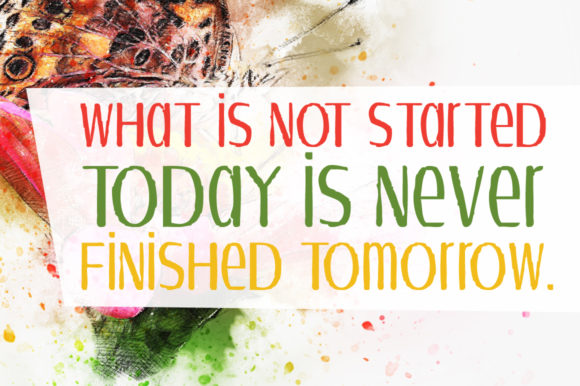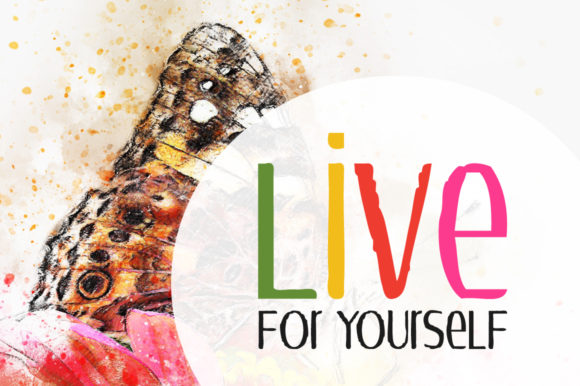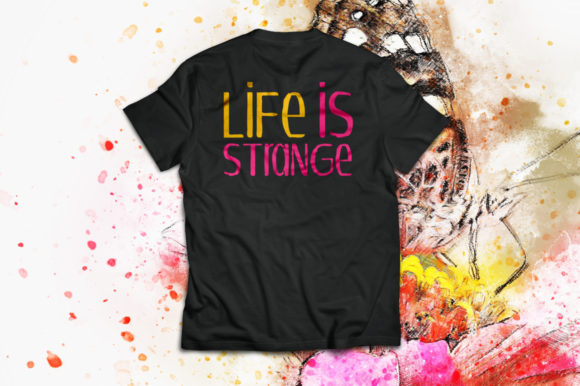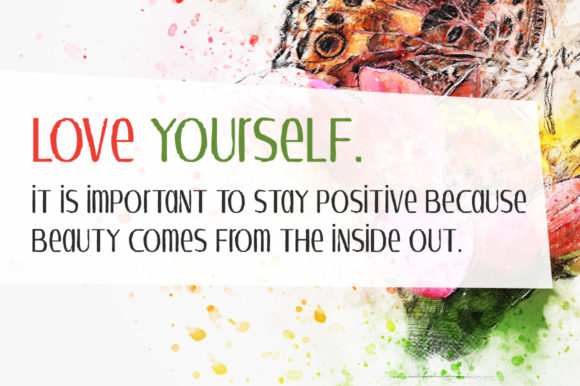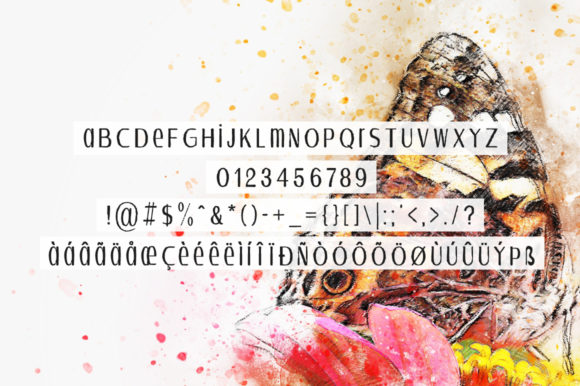
Introducing Colorants Font: Elevate Your Designs with a Striking Handwritten Style
In the world of design, fonts play a crucial role in conveying messages, evoking emotions, and creating visual identities. For designers and crafters seeking a unique and impactful font, Colorants Font is an excellent choice. This striking handwritten font boasts exceptional readability, making it perfect for a wide range of applications, from flyers and music covers to image sliders and more.
The Characteristics of Colorants Font
Colorants Font is a carefully crafted handwritten font that exudes a sense of personality and flair. Its distinctive characteristics include:
- Readability: Despite its artistic and handwritten nature, Colorants Font maintains excellent readability, ensuring that your message is conveyed clearly and effectively.
- Uniqueness: The font’s distinctive style sets it apart from more traditional fonts, allowing your designs to stand out and capture attention.
- Versatility: Colorants Font is suitable for a wide range of applications, from digital media to print materials.
Uses of Colorants Font
The versatility of Colorants Font makes it an excellent choice for various design projects. Here are some of the ways you can utilize this font:
- Flyers and Brochures: Add a touch of personality to your marketing materials with Colorants Font, making them more engaging and memorable.
- Music Covers: Give your music covers a unique and eye-catching look that reflects the style and tone of your music.
- Image Sliders: Use Colorants Font to add a creative and artistic touch to your image sliders, enhancing the overall visual impact.
- Social Media Graphics: Elevate your social media presence with custom graphics featuring Colorants Font, making your posts stand out in crowded feeds.
- Crafting and DIY Projects: Add a personal touch to your crafting and DIY projects, such as handmade cards, gift tags, and more.
Colorants Font offers numerous benefits for designers and crafters, including:
- Time-Saving: With its excellent readability and versatility, Colorants Font saves you time and effort in finding the perfect font for your projects.
- Increased Creativity: The font’s unique style inspires creativity and allows you to experiment with different design concepts.
- Professional Results: Achieve professional-looking results with Colorants Font, even if you’re not an experienced designer.
Tips for Using Colorants Font Effectively
To get the most out of Colorants Font, consider the following tips:
- Pair it with Complementary Fonts: Combine Colorants Font with complementary fonts to create visual interest and hierarchy in your designs.
- Experiment with Colors: Take advantage of the font’s name and experiment with different colors to add an extra layer of creativity to your designs.
- Use it Consistently: Use Colorants Font consistently across your designs to establish a strong visual identity.